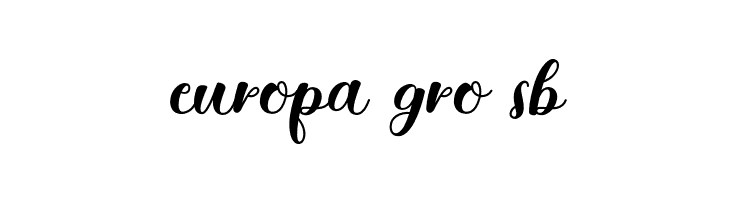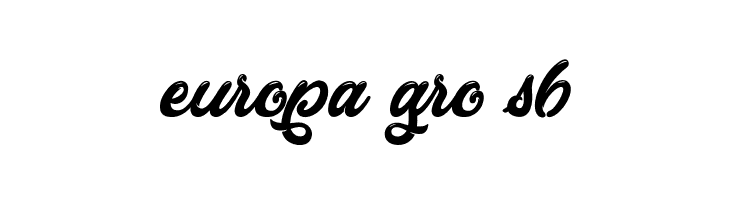
AllTheRollPersonalUse Font
A playful, bold, and whimsical handwritten font with retro flair.
AlohaFriday-PersonalUse Font
A decorative script font with elegant, flowing letterforms and ornate details.
Antique Cherry - Personal Use Font
A vintage, ornate script font with elegant loops and flourishes.
Ants Valley - Personal Use Font
An elegant and flowing script font with intricate swashes and decorative flourishes.
Atomic Robusta - Personal Use Font
A bold, playful script font with a lively, handwritten style.
Beefy Soup - Personal Use Font
A playful, bold script font with a hand-drawn, whimsical style.
BellandLambPersonalUse Font
A playful and bold font with rounded, slightly irregular letterforms.
BettyMollyPersonalUse Font
An elegant script font with ornate swirls and decorative flourishes.
BlackandVioletPersonalUse Font
A bold, flowing script font with playful curves and dynamic strokes.
BlackWayPersonalUse Font
A bold, expressive handwritten font with playful splatter embellishments.
Blisk Rhythm - Personal Use Font
A bold, textured script font with a vintage, handcrafted feel.
BlueEyesPersonalUse Font
A playful and bold script font with a whimsical and dynamic style.
BlueLotusPersonalUse Font
A flowing, elegant script font with bold, dynamic uppercase and graceful lowercase letters.
Butterfly Kiss - Personal Use Font
Font by Typhoon Type - Suthi Srisopha - www.typhoontype.net - Personal-use only. For commercial use please contact owner.
A flowing, cursive font with elegant, interconnected letters.
Chocolate Kids - Personal Use Font
Font by Typhoon Type - Suthi Srisopha - www.typhoontype.net - Personal-use only. For commercial use please contact owner.
A playful, handwritten font with bold strokes and a lively, dynamic style.
Christmas Bell - Personal Use Font
Font by Typhoon Type - Suthi Srisopha - www.typhoontype.net - Personal-use only. For commercial use please contact owner.
A festive and playful script font with elegant loops and swirls.
Christmas Ribby - Personal Use Font
HelloPiratesPersonalUse Font
A playful, handwritten script font with smooth, flowing strokes.
High Destiny - Personal Use Font
Elegant script font with ornate loops and cursive flow.